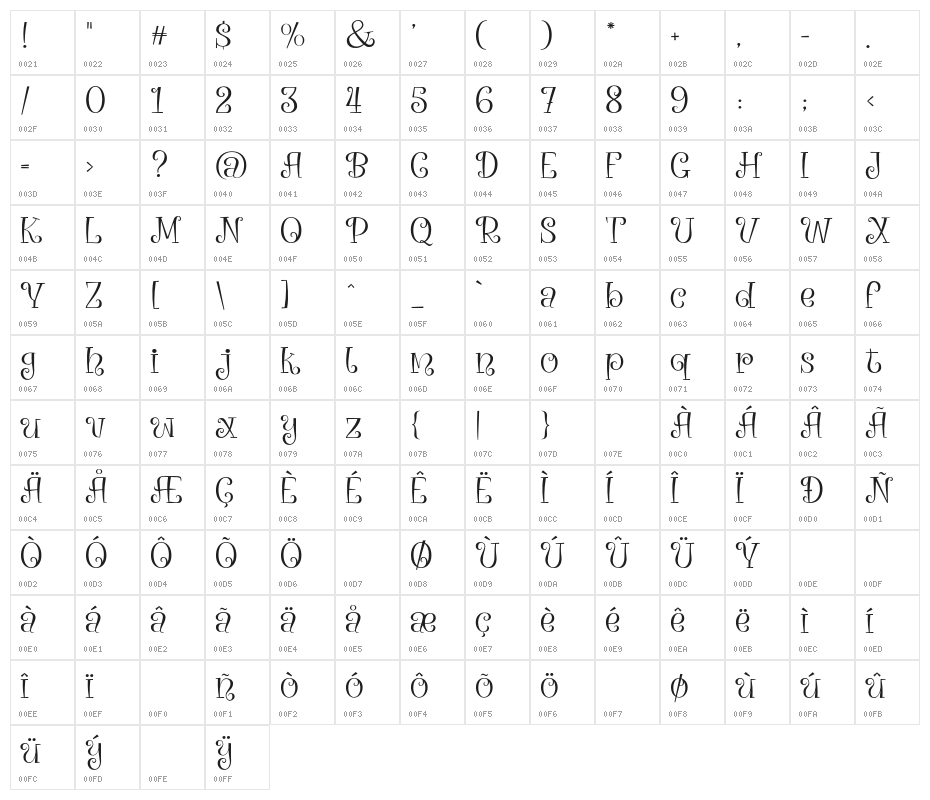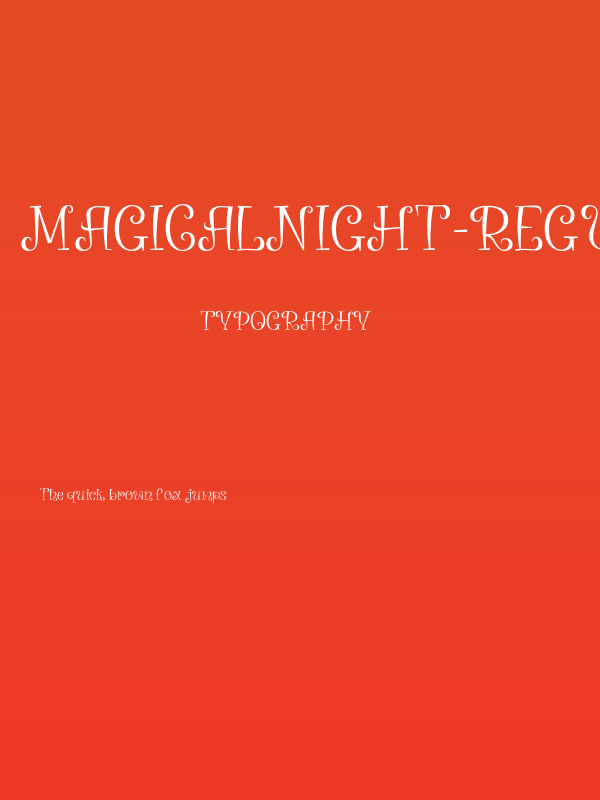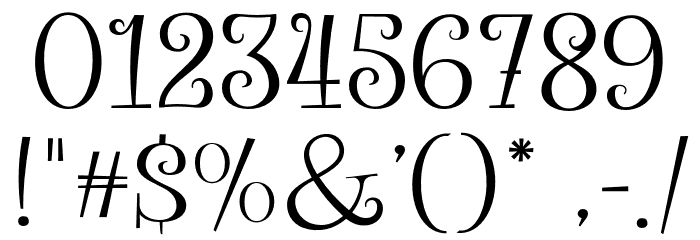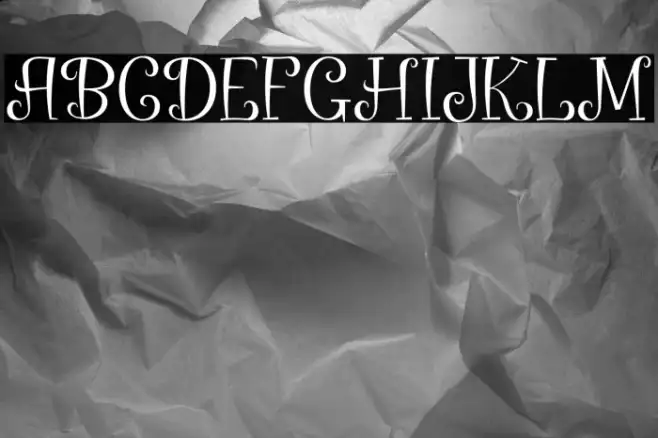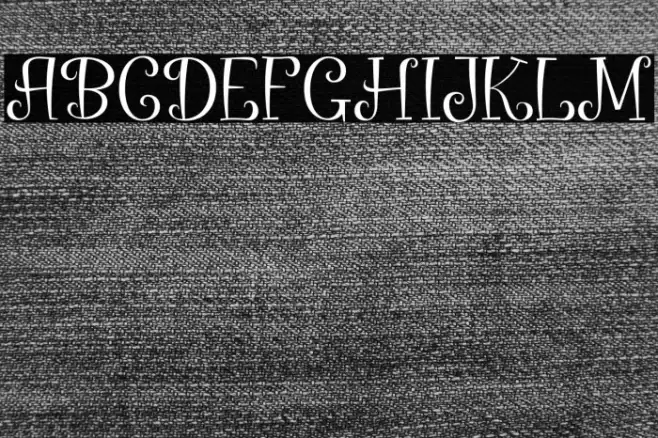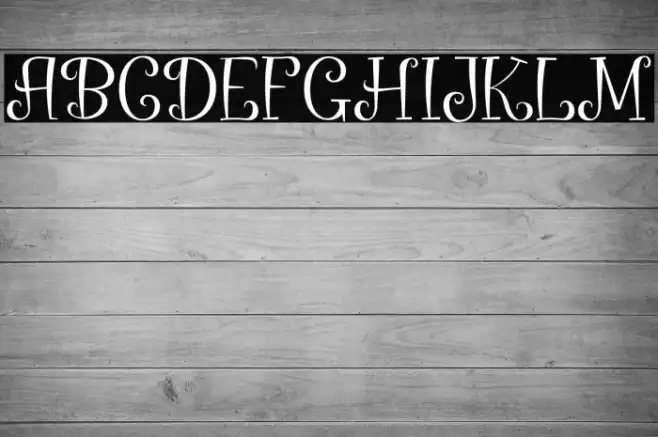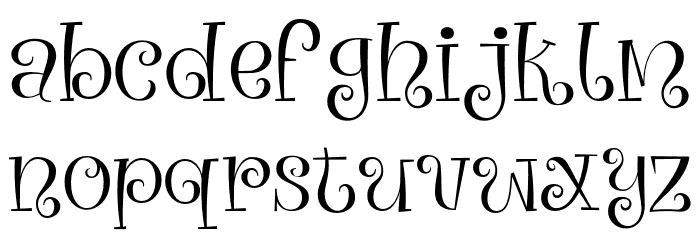
MagicalNight-Regular Font
MagicalNight-Regular Description
This whimsical and enchanting font features a playful, curly design that adds a touch of magic to any text. Each character is adorned with unique swirls and loops, creating a sense of movement and fantasy. The uppercase letters are bold and decorative, while the lowercase letters maintain a consistent style with a slightly more delicate touch. Numbers and special characters are equally ornate, ensuring a cohesive look across all text elements. The overall appearance is both elegant and fun, making it ideal for creative projects that require a touch of whimsy.
| Proposed Projects | Perfect for children's books, fantasy-themed invitations, greeting cards, and playful branding. |